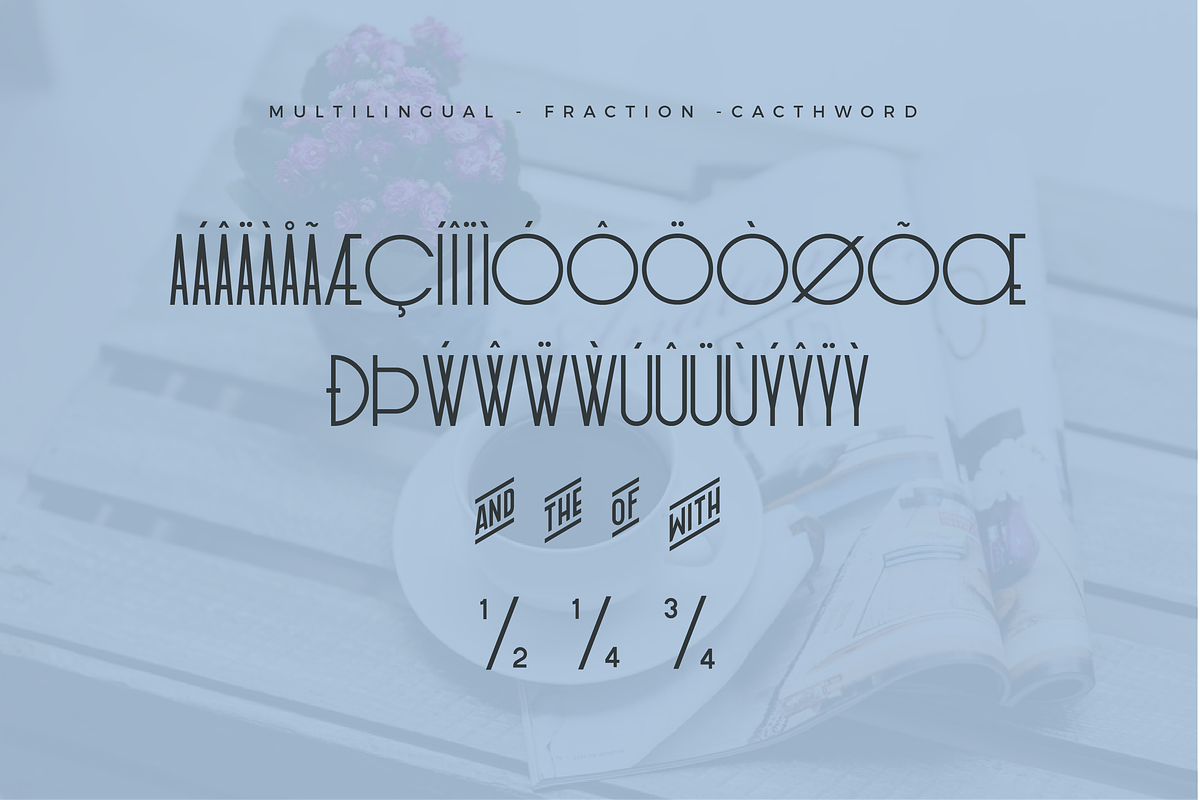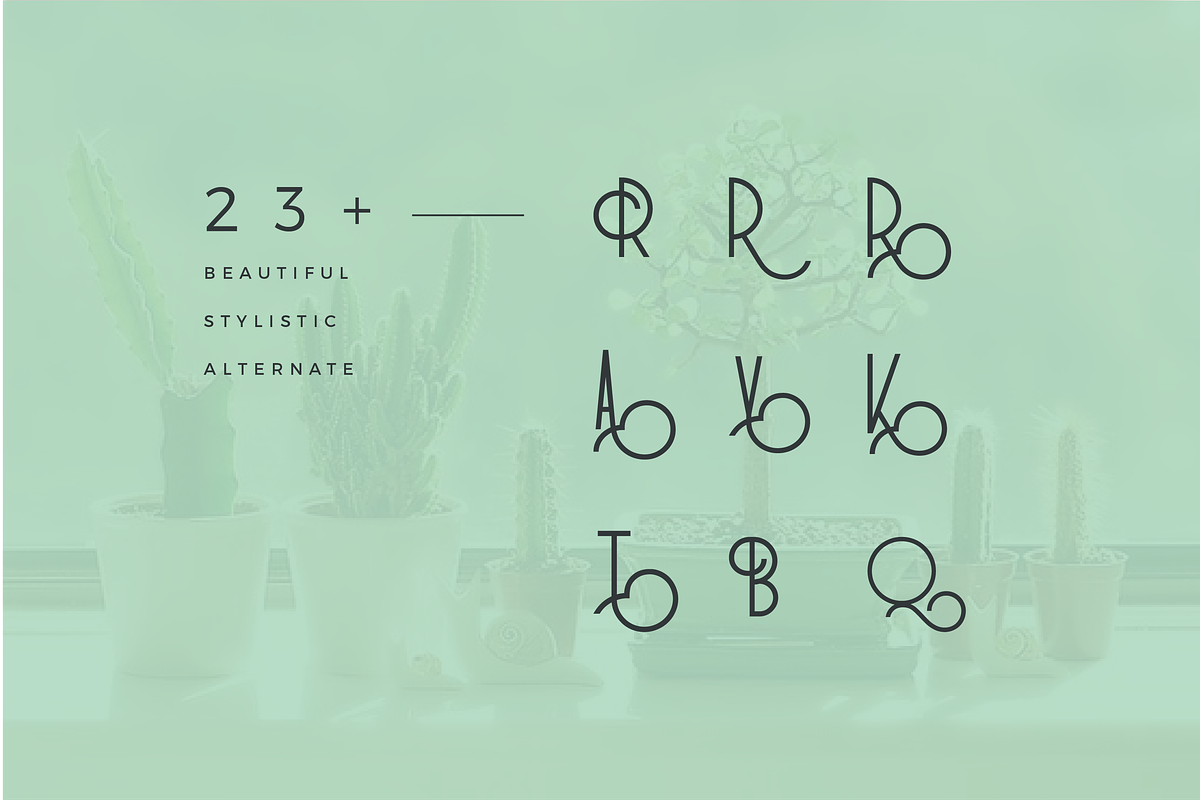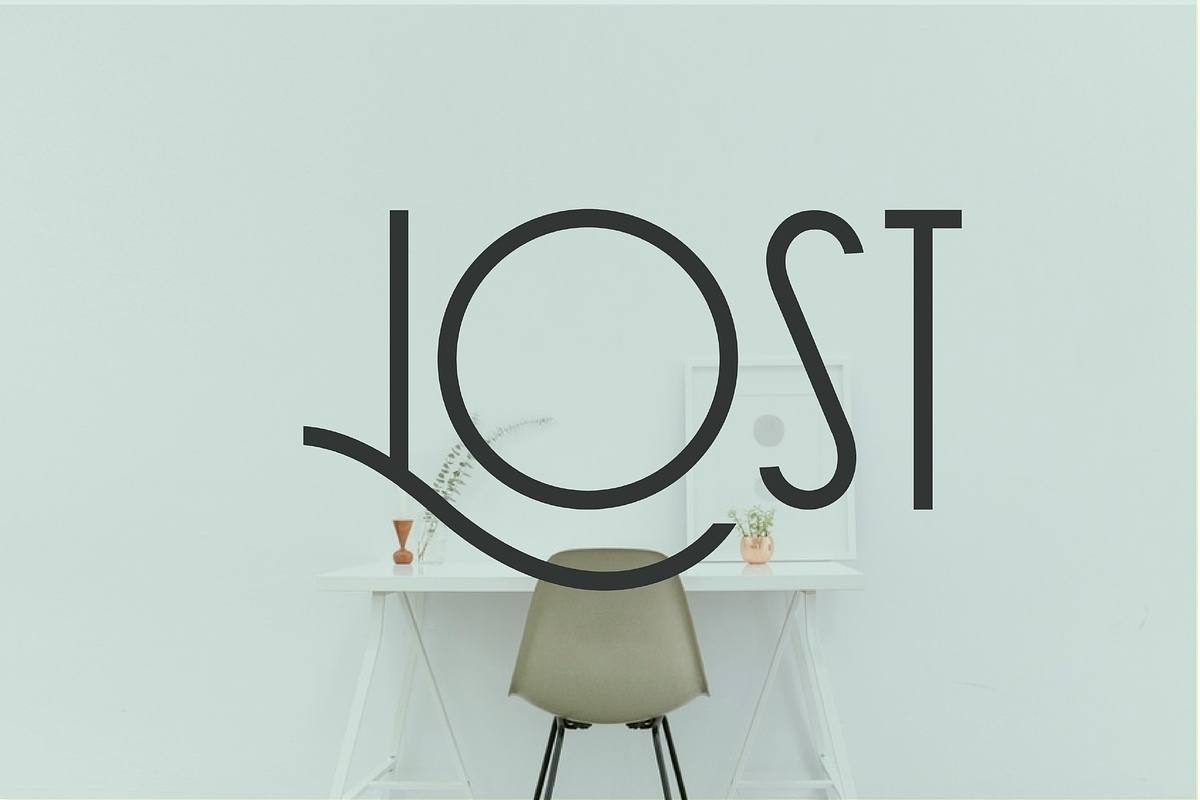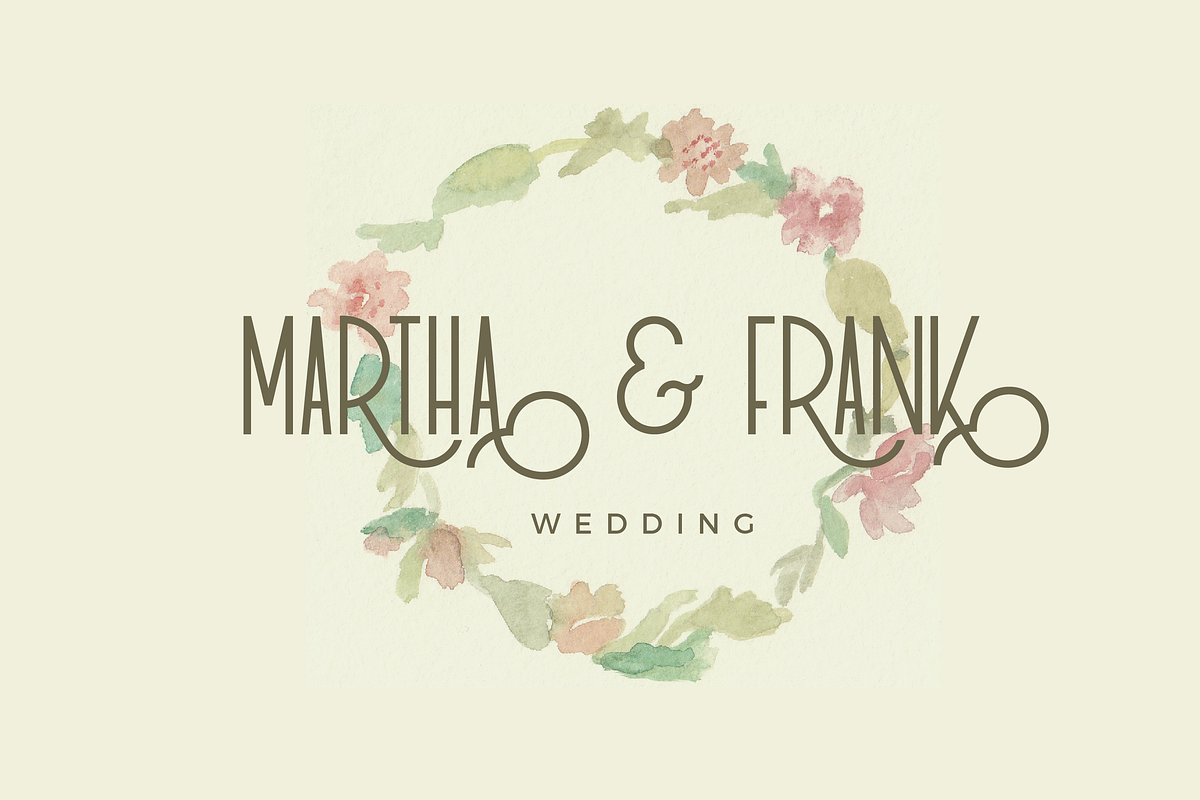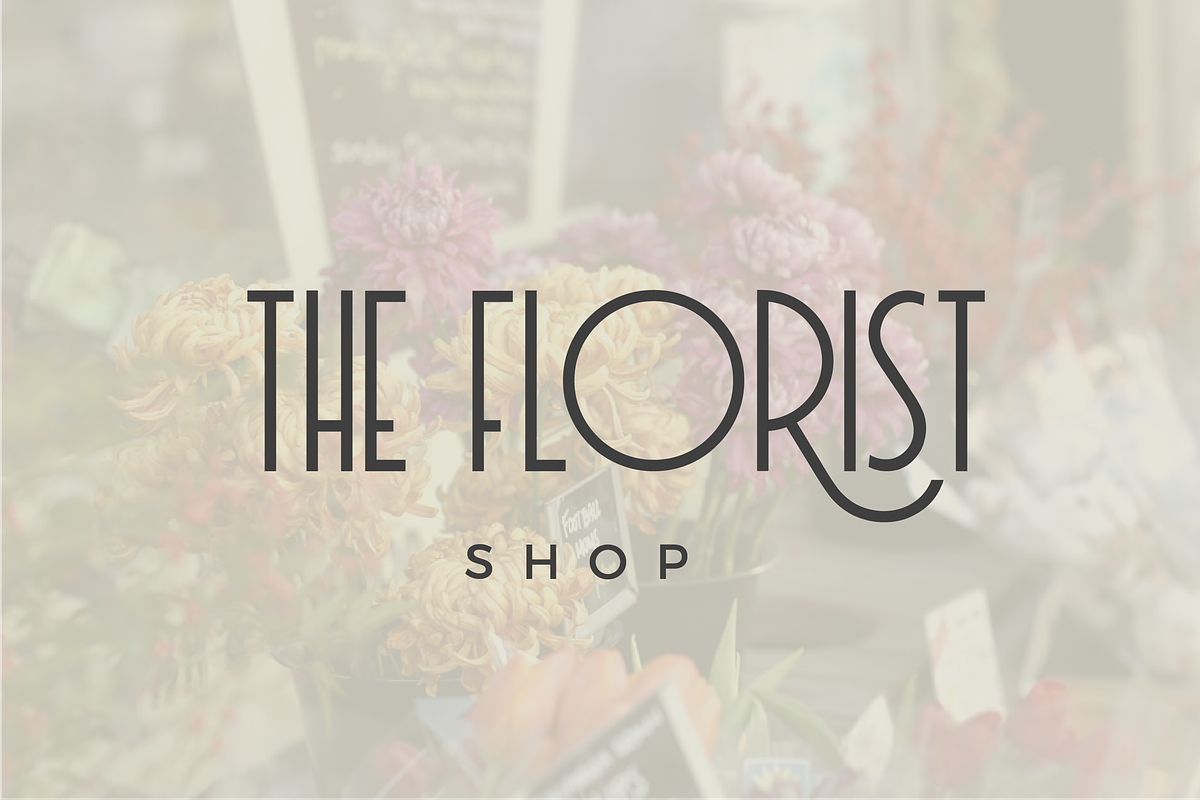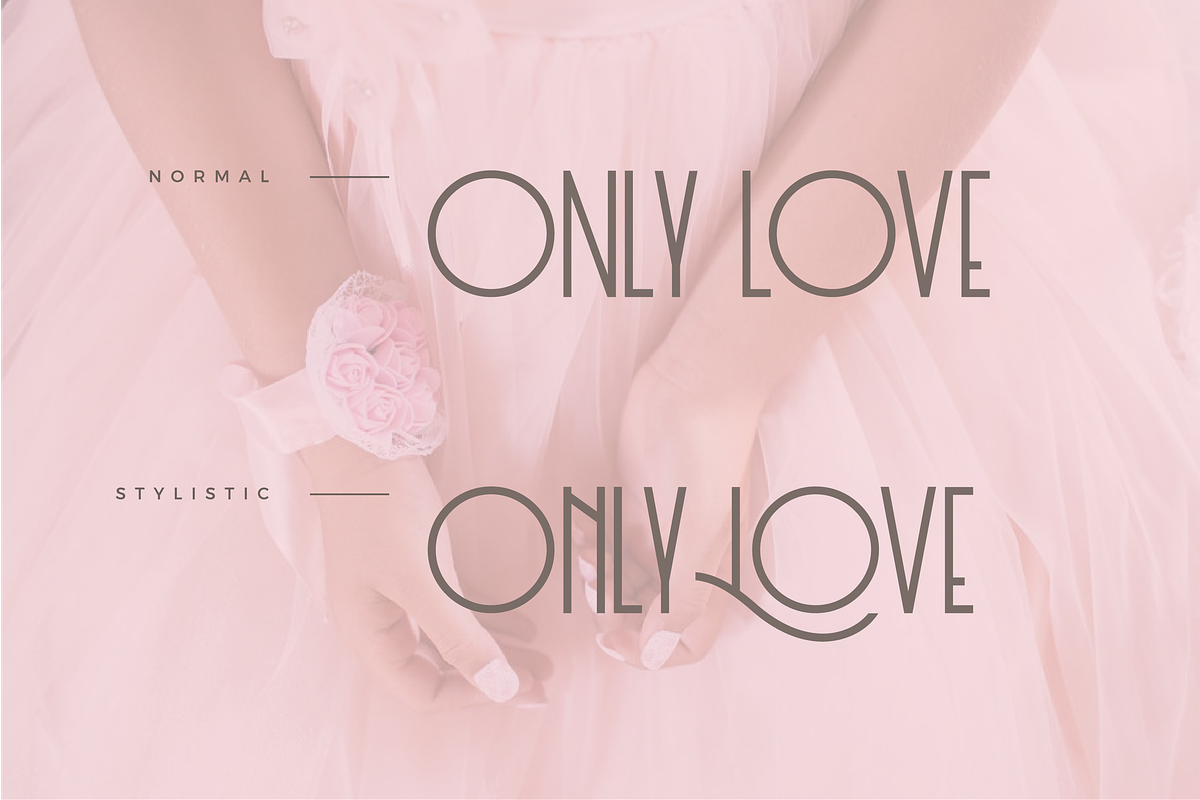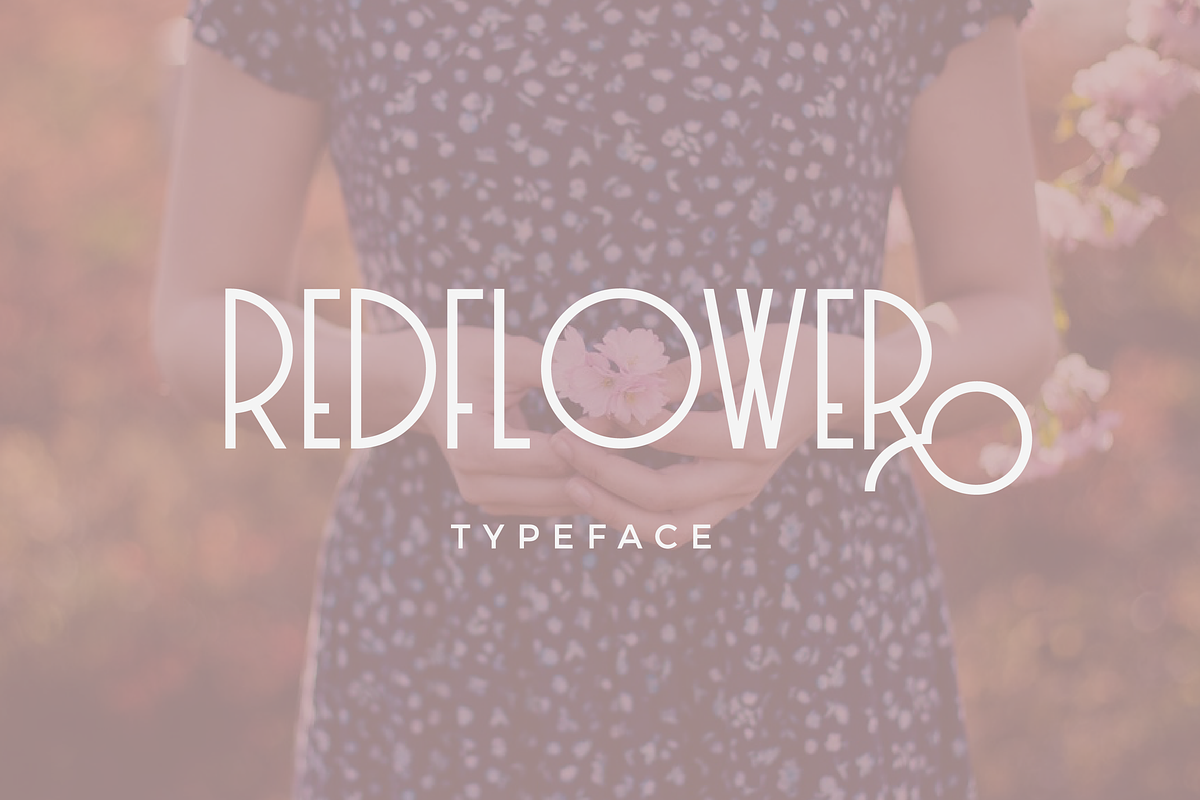
RedFlower Typeface 80% OFF by Type & Studio is a font selected for branding, posters, packaging, typography.
- RedFlower Typeface the beautiful modern style, Minimalist, fresh, soft with consistent strokes, equipped with Multilingual, swash, fractions
RedFlower Typeface 80% OFF by Type & Studio fits naturally into Branding, posters, packaging, typography.